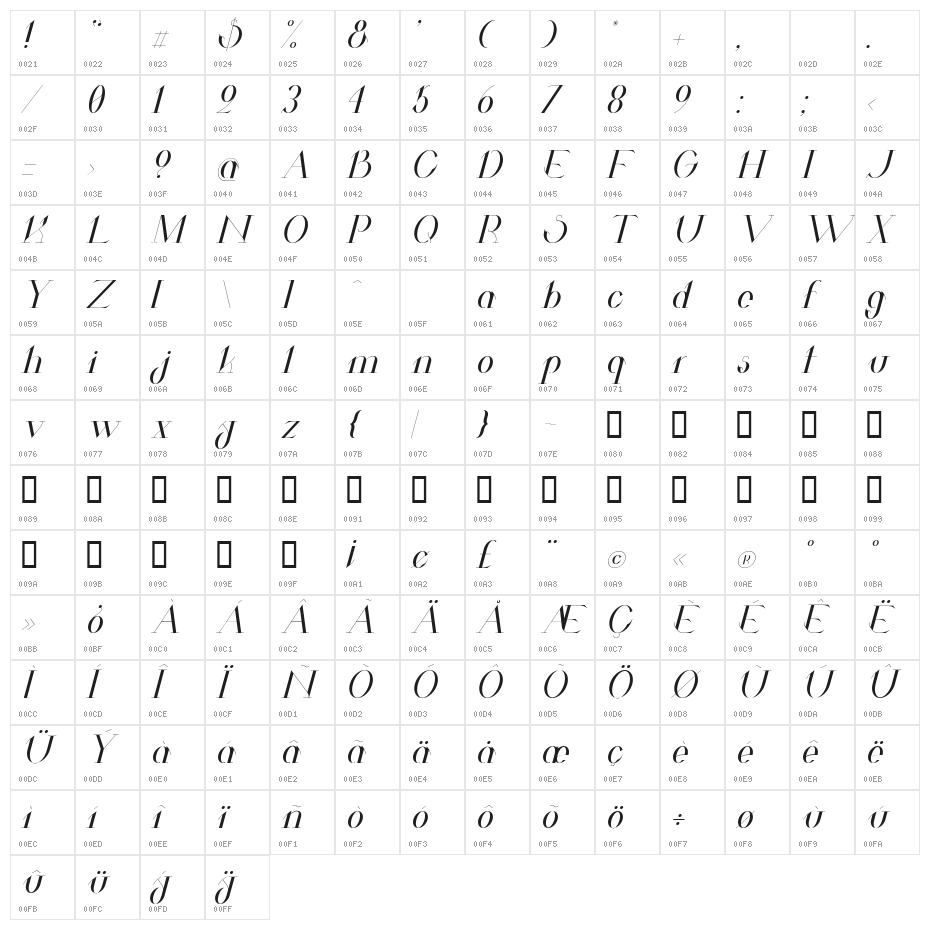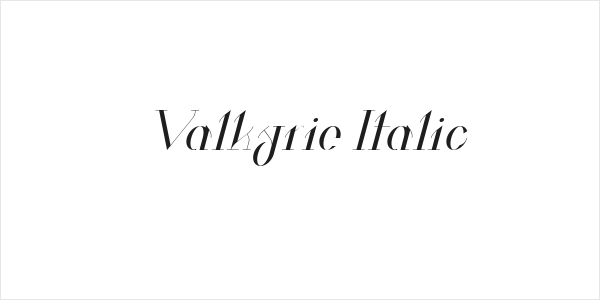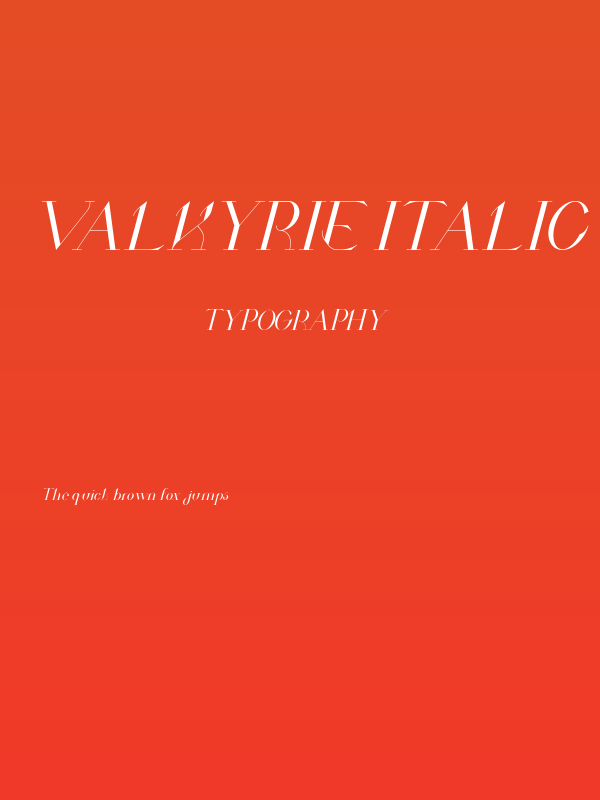
Valkyrie Italic Font
Valkyrie Italic Description
This elegant and sophisticated font features a distinct italic style with a high contrast between thick and thin strokes. The characters are gracefully slanted, giving a sense of movement and fluidity. The uppercase letters are tall and commanding, while the lowercase letters maintain a harmonious balance with their slightly condensed form. The numerals are stylishly designed, complementing the overall aesthetic. Special characters are crafted with the same attention to detail, ensuring consistency throughout. This font exudes a modern yet timeless appeal, making it suitable for a variety of design applications.
Overall StyleElegant, Sophisticated
Use CaseHeadlines, Logos, Invitations
Proposed ProjectsIdeal for luxury branding, editorial design, wedding invitations, and high-end product packaging.